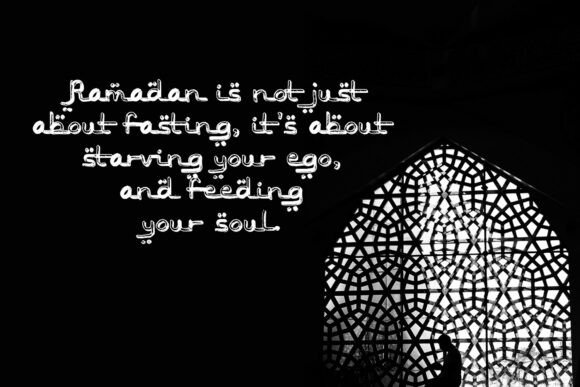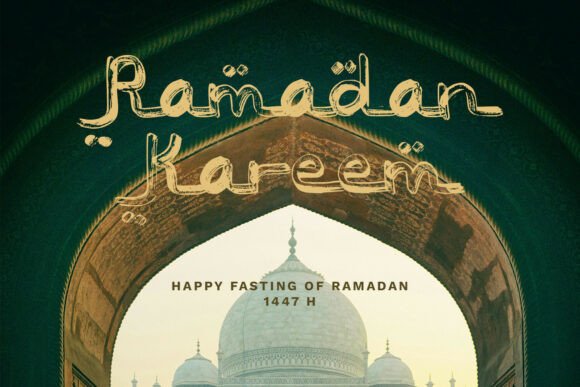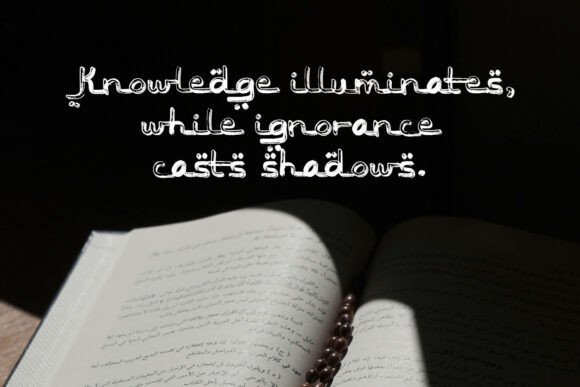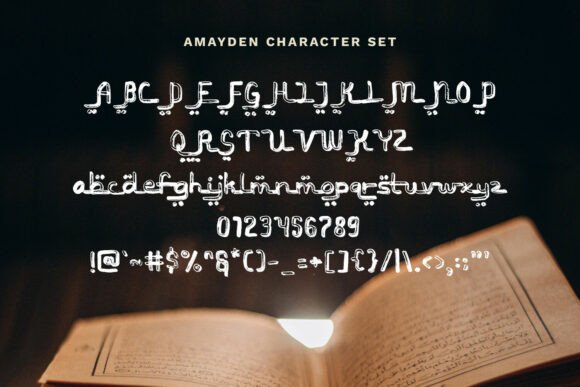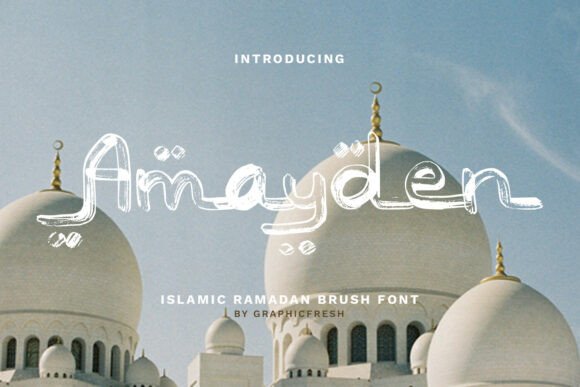
Introducing Amayden Font: The Perfect Choice for Ramadan Branding and Design
As the holy month of Ramadan approaches, designers and crafters are on the lookout for fonts that can help them create meaningful and visually stunning designs. Amayden Font is an Islamic Ramadan brush font that is specifically designed to capture the essence of this special time of the year. Inspired by elegant handwritten strokes and spiritual warmth, Amayden is the perfect choice for Ramadan branding, greeting cards, invitations, social media graphics, Islamic quotes, and religious event promotions.
The Inspiration Behind Amayden Font
Amayden Font is inspired by the beauty and serenity of the holy month of Ramadan. The font’s design is rooted in the traditional Arabic calligraphy and the spiritual warmth that comes with the month of Ramadan. The creator of Amayden Font aimed to capture the festive atmosphere and the sense of community that defines Ramadan, while also conveying a sense of respect and refinement.
Design Features of Amayden Font
Amayden Font is designed with a soft yet expressive brush texture that gives it a unique and elegant feel. The font features a graceful flow and handcrafted character that makes it perfect for a variety of design applications. The brush texture used in Amayden Font is carefully crafted to give the font a sense of warmth and spirituality, making it ideal for Ramadan-related designs.
What Makes Amayden Font Special?
Amayden Font blends modern brush energy with a respectful and refined aesthetic, creating a meaningful visual presence. The font’s design is carefully balanced to convey a sense of elegance and sophistication, while also being approachable and relatable. This makes Amayden Font perfect for designers and crafters who want to create designs that are both visually stunning and spiritually meaningful.
Use Cases for Amayden Font
Amayden Font is a versatile font that can be used in a variety of design applications, including:
- Ramadan branding: Create a lasting impression with Amayden Font, perfect for logos, business cards, and letterheads.
- Greeting cards: Design beautiful and heartfelt greeting cards for Ramadan with Amayden Font.
- Invitations: Create elegant and sophisticated invitations for Ramadan events and gatherings.
- Social media graphics: Use Amayden Font to create stunning social media graphics that capture the essence of Ramadan.
- Islamic quotes: Design inspiring and visually stunning Islamic quotes with Amayden Font.
- Religious event promotions: Promote Ramadan events and gatherings with Amayden Font, perfect for posters, flyers, and brochures.
Why Choose Amayden Font?
Amayden Font is a unique and elegant font that is specifically designed for Ramadan-related designs. Here are some reasons why you should choose Amayden Font for your next design project:
- Unique and elegant design: Amayden Font features a soft yet expressive brush texture that gives it a unique and elegant feel.
- Spiritual warmth: The font’s design is inspired by the spiritual warmth of Ramadan, making it perfect for creating meaningful designs.
- Versatile: Amayden Font can be used in a variety of design applications, from branding and advertising to social media graphics and more.
- Handcrafted character: The font’s handcrafted character gives it a personal touch that is perfect for creating unique and memorable designs.
| Font Name | Amayden Font |
| Author | Graphicfresh |
Amayden Font is a beautiful and elegant Islamic Ramadan brush font that is perfect for designers and crafters who want to create meaningful and visually stunning designs. With its unique and expressive brush texture, spiritual warmth, and versatile design, Amayden Font is the perfect choice for Ramadan branding, greeting cards, invitations, social media graphics, Islamic quotes, and religious event promotions. Whether you’re a designer or crafter, Amayden Font is a great addition to your font collection.